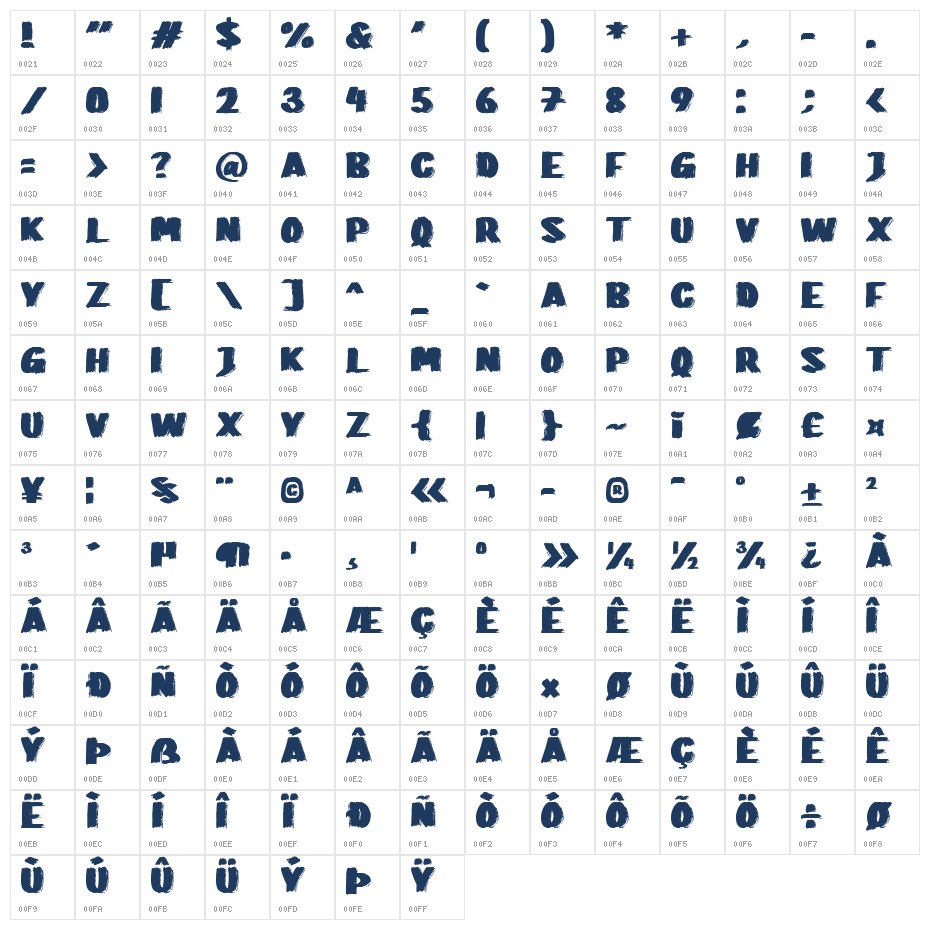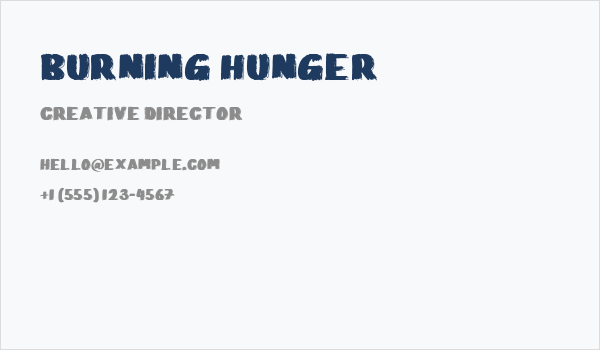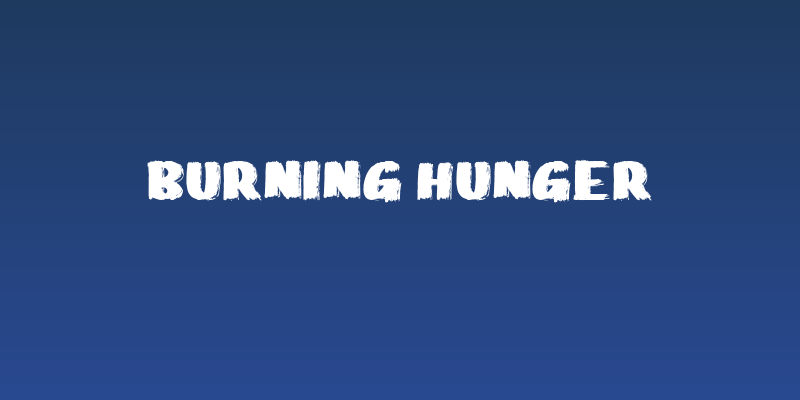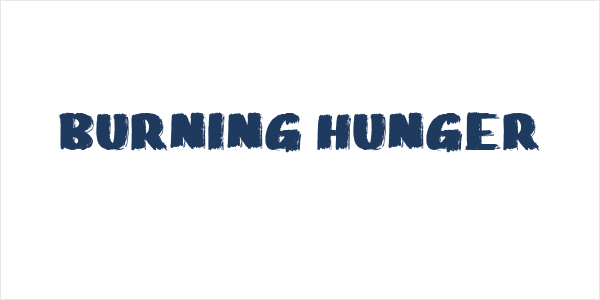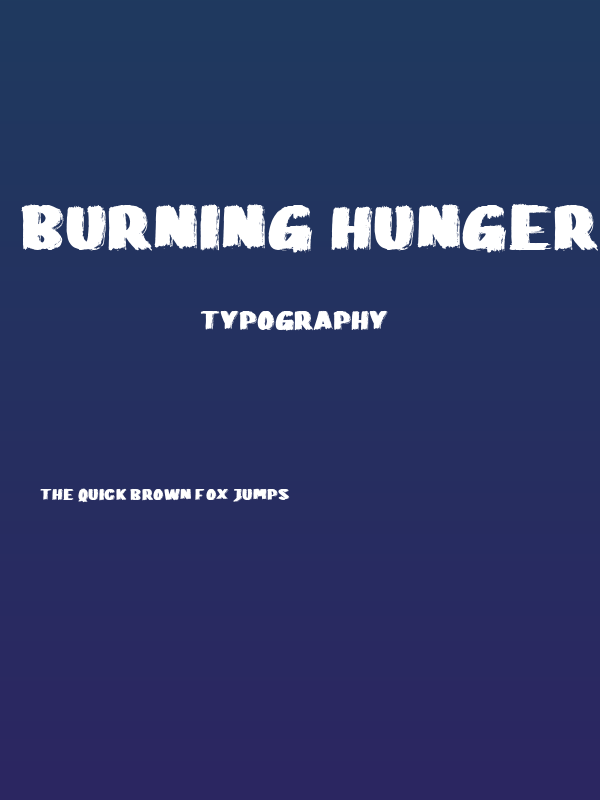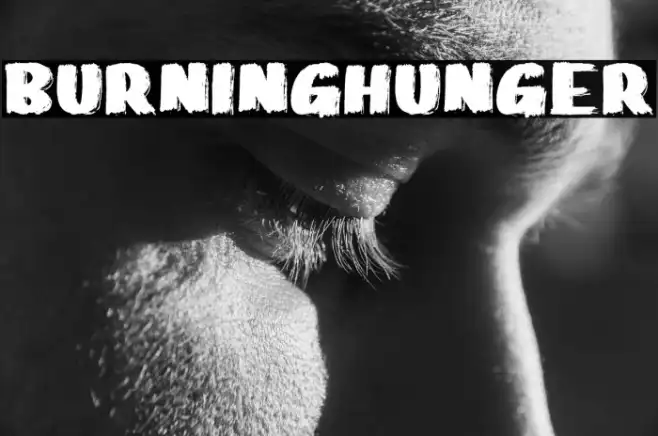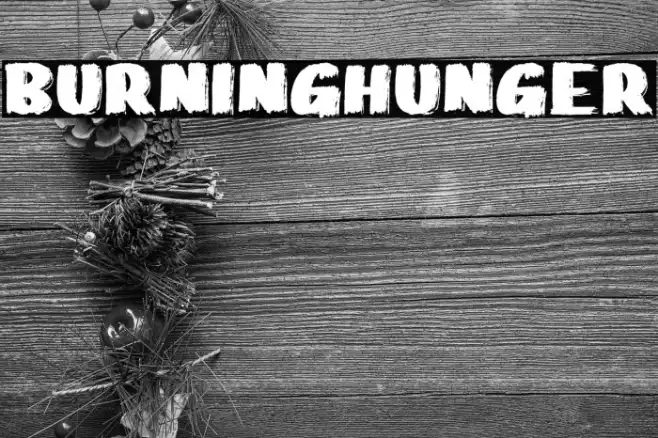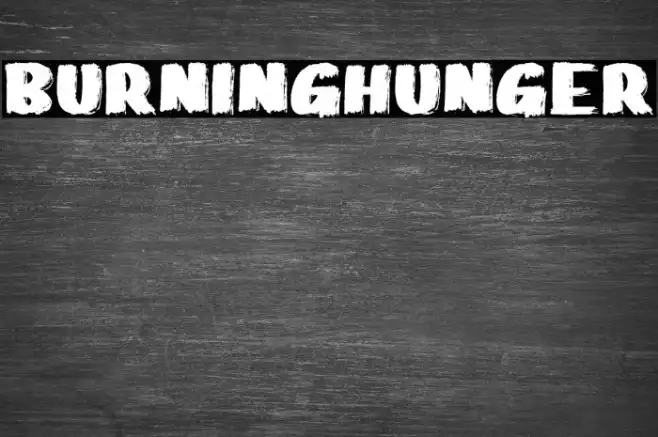
Burning Hunger Font
Burning Hunger Description
Bold, textured, brush-stroke style font with a casual and artistic appearance.
| Overall Style | Casual, Artistic, Handcrafted |
| Use Case | Headlines, Posters, Logos, Creative branding |